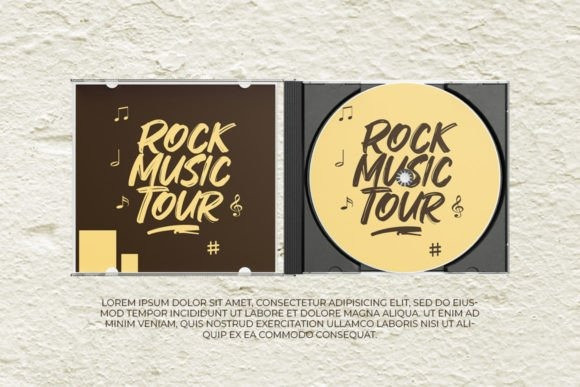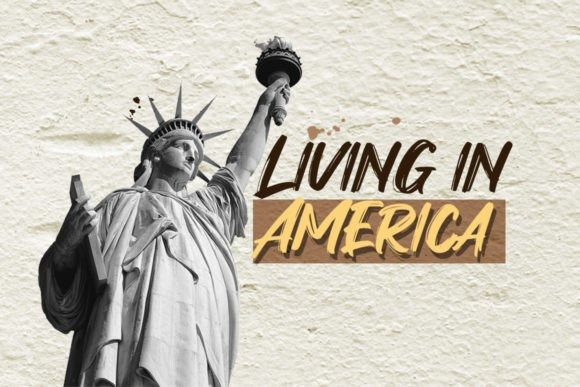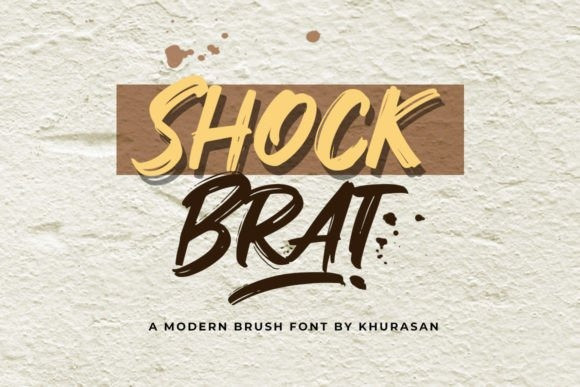
Shock Brat Font
Shock Brat Brush Font is a modern brush font perfect for posters, logos, magazines, book covers, banners, and many more! Get this quirky display font, and use it to create lovely designs!